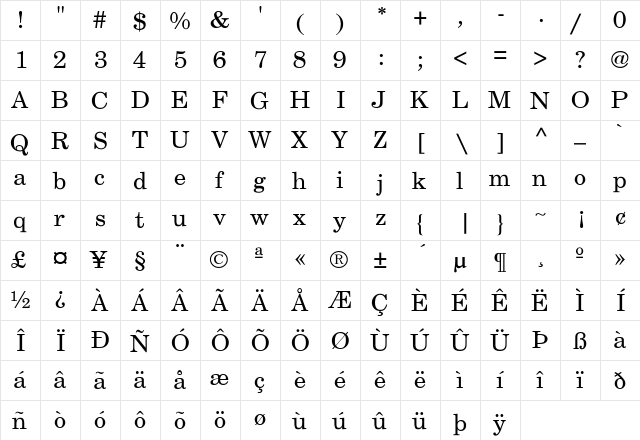
BackRoad Light Regular
Design Context for BackRoad Light Typeface
BackRoad Light takes a measured approach to typography — its balanced proportions and neutral character make it a reliable workhorse for both digital and print work. Its slender proportions lend an understated elegance to any composition.